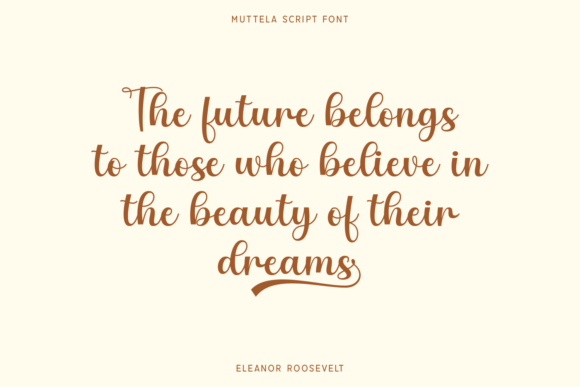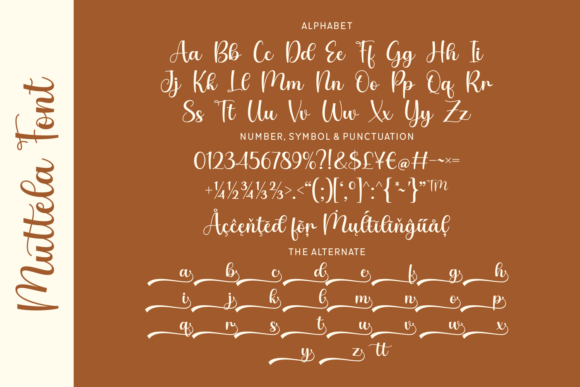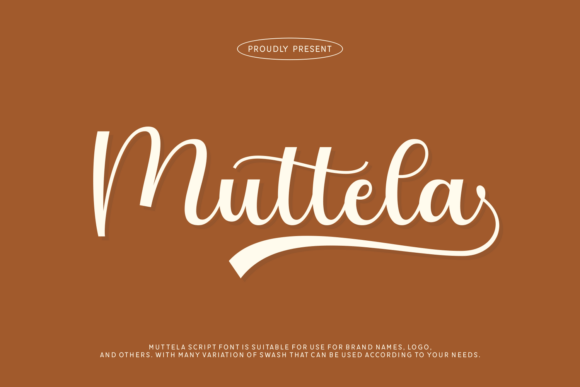
Introduction to Muttela Font
Have you ever been working on a creative project, pouring your heart and soul into it, only to find the perfect font eludes you? You envision the perfect combination of elegance and sophistication, but nothing seems to capture the essence of your vision. This is where Muttela Font comes in – a stunning script font that will elevate your design to new heights.
Muttela Font is more than just a font; it’s a design resource that will add a touch of sophistication to any project. With its elegant curves and stylish swashes, it’s perfect for logos, branding, packaging, invitations, and more. Whether you’re working on a free download or a high-quality commercial project, Muttela Font is sure to impress. And with its transparent background, you can easily overlay it on any image or design element.
Key Features of Muttela Font
- Unique, stylish font with a transparent background, ideal for adding a touch of sophistication to any design.
- Comprehensive character set, including uppercase and lowercase letters, numbers, and special characters.
- Perfect for use in logos, branding materials, and other design elements where a unique and stylish font is required.
Honest Review: Muttela Font
As a designer, I’m always on the lookout for high-quality fonts that can elevate my creative projects. Recently, I had the chance to try out the Muttela Font, and I must say, it’s been a game-changer for me.
- High-quality design: The Muttela Font boasts an elegant and refined design that’s perfect for creating a sophisticated look.
However, I did encounter a few limitations.
- Limited font styles: While the Muttela Font looks great, it’s available in a limited number of styles, which can make it less versatile for certain design projects.
Overall, I’m impressed with the Muttela Font and would definitely recommend it to fellow designers looking for a high-quality, free download font for their creative projects.
With its elegant design, transparent background, and free download option, the Muttela Font has quickly become a staple in my design toolkit.
Muttela Font is commonly used in various design projects, including logos, brochures, business cards, and social media graphics. It’s also a great choice for creating presentations, reports, and documents.